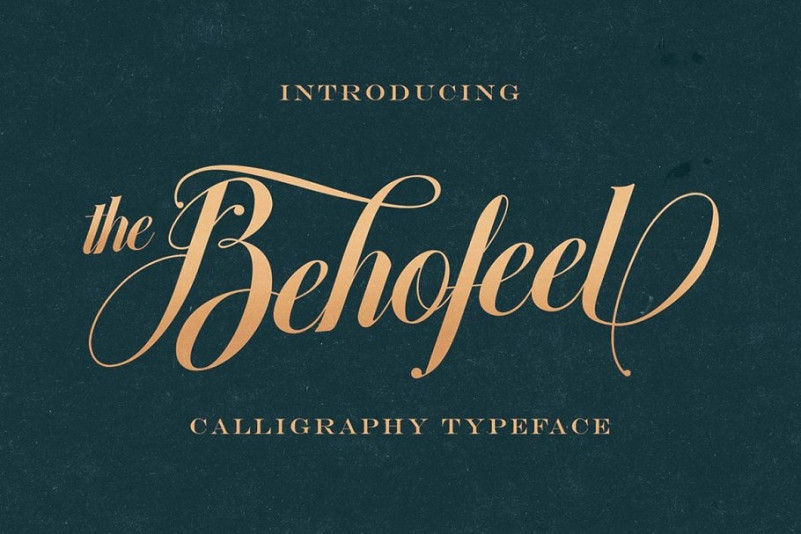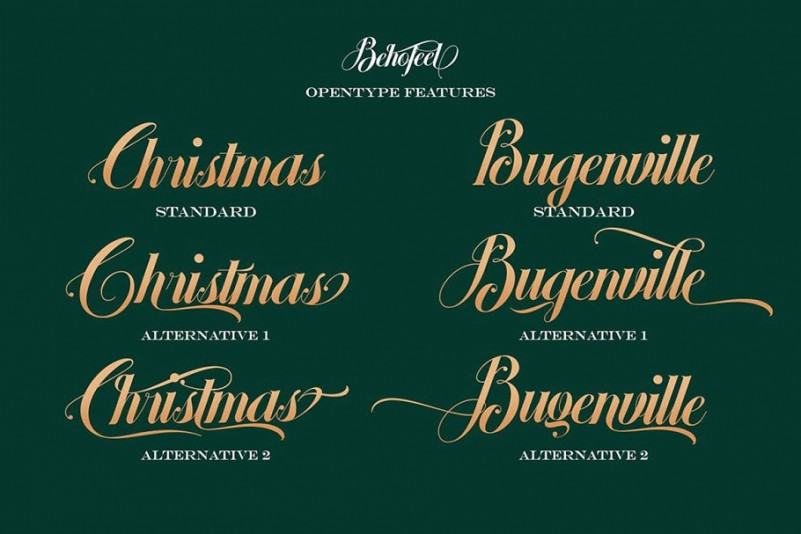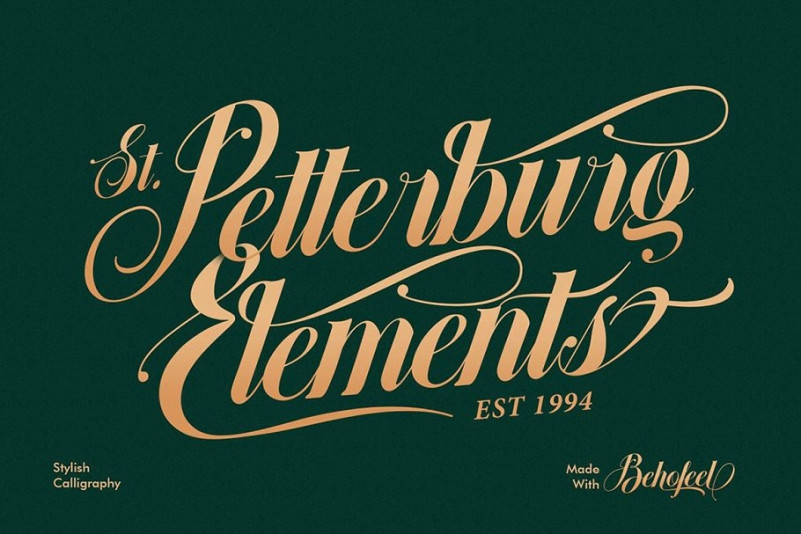
Behofeel Font
A font that is inspired by vintage decorative letters or cards. With ornamental vintage style and lot of swashes you can create realistic headers. It works beautifully for any branding and advertising. You’ll find a lot of alternate characters, ligatures and multilanguage characters in this elegant & decorative script font. Comes with illustration font with some authentic vintage shapes or illustrations – great for your new logos or headers.